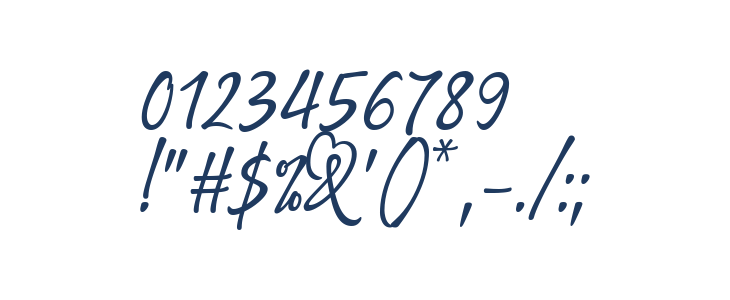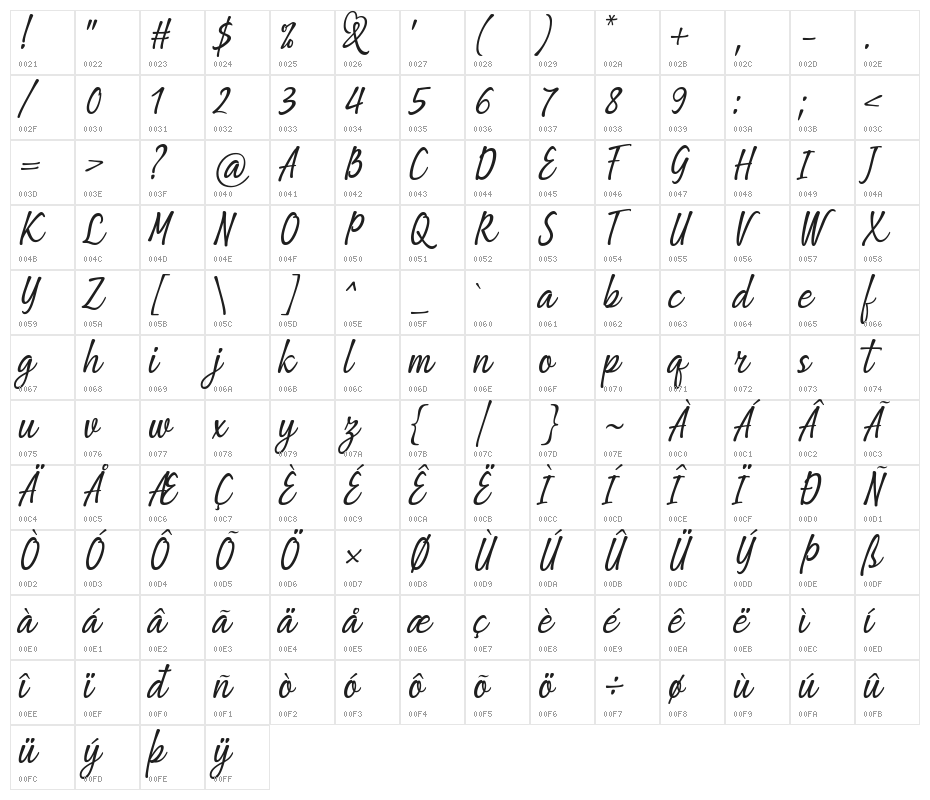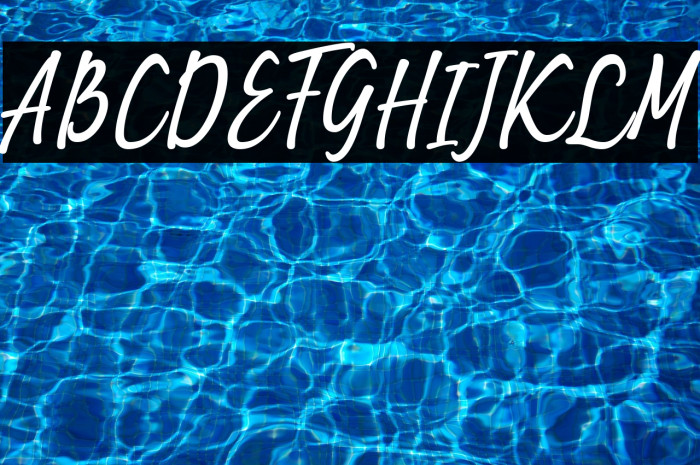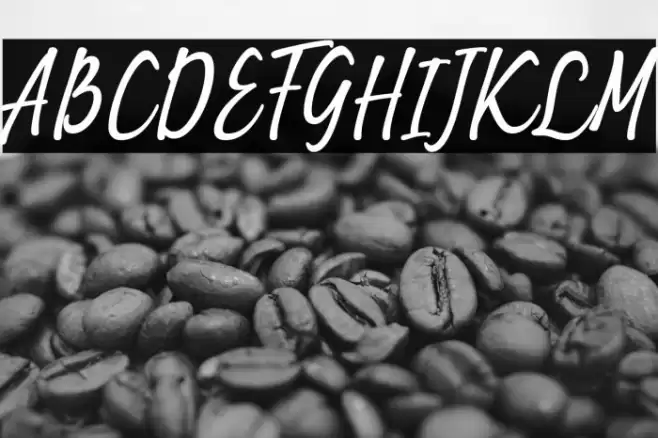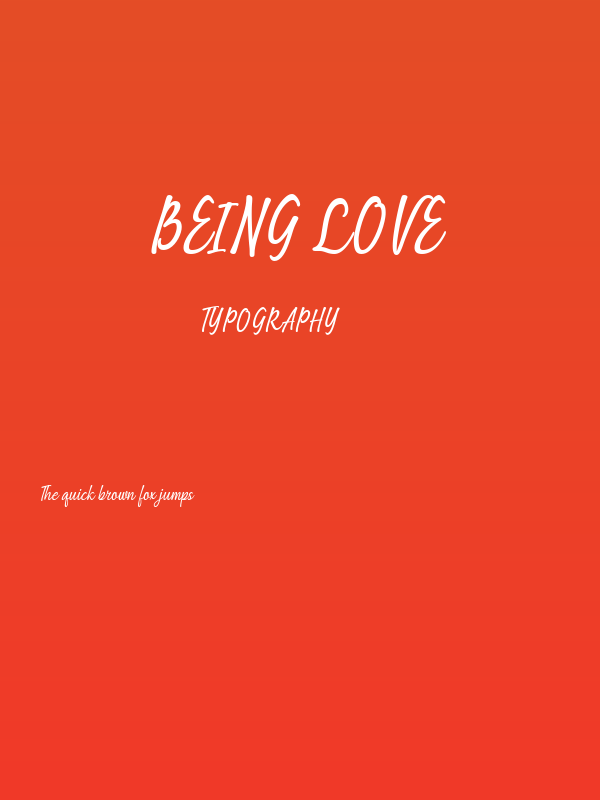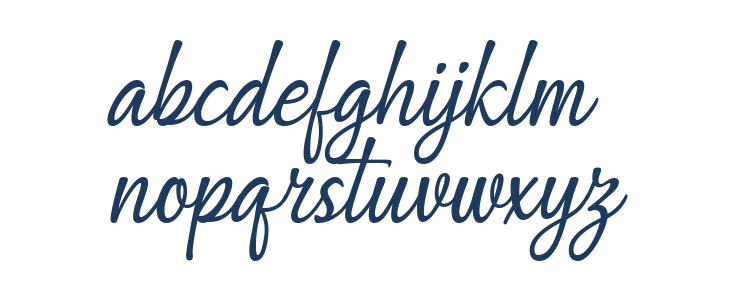
Being Love Font
Being Love Description
This font features a flowing, cursive style that exudes elegance and a personal touch. The characters are connected in a smooth, continuous manner, reminiscent of handwriting. The uppercase letters are slightly taller and more pronounced, while the lowercase letters maintain a consistent baseline, adding to the font's readability. The numerals and special characters are designed to complement the alphabet, maintaining the same fluidity and style. This font is ideal for projects that require a personal or artistic flair, such as invitations, greeting cards, or branding materials. Its script nature gives it a warm and inviting appearance, making it suitable for conveying messages of love and affection.
| Overall Style | Elegant, Personal, Artistic |
| Use Case | Invitations, Greeting cards, Personal branding |
| Proposed Projects | Ideal for wedding invitations, greeting cards, personal branding, and artistic projects. |